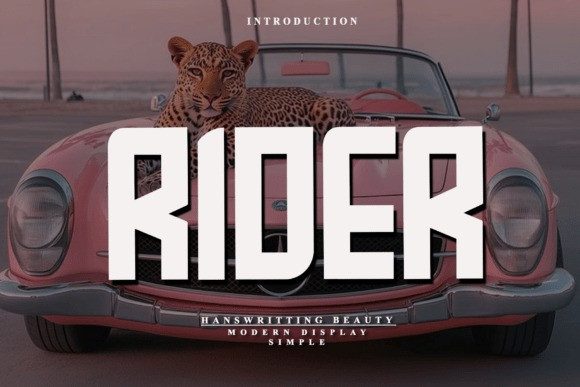
Rider Font
Rider Font is a bold and striking modern display font with sharp angles and strong geometric shapes. Designed for maximum impact, it’s perfect for sports posters, automotive branding, music covers, and headlines that demand attention. Rider’s confident and edgy style brings a sense of power and motion to any design.